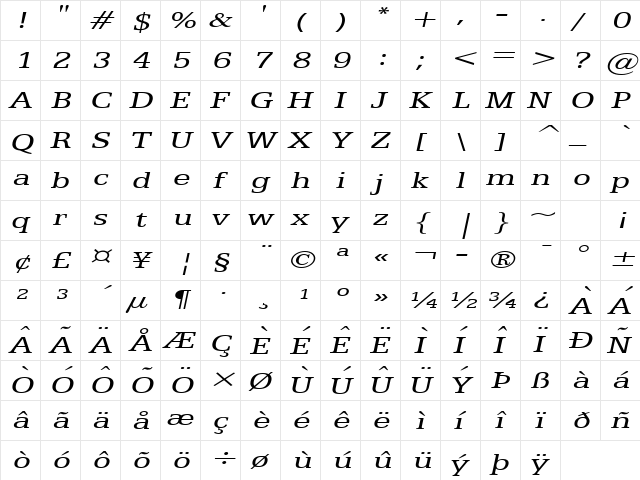
Eggo Extended Italic
Design Context for Eggo Extended Typeface
Eggo Extended offers clean, dependable letterforms without strong stylistic allegiance, making it a practical choice for designers who need flexibility. The dynamic lean of this cut emphasises speed and emphasis in any layout.
Pro Tip: Use Eggo Extended for emphasis, pull quotes, and subheadings where its slanted energy can add rhythm to the layout.